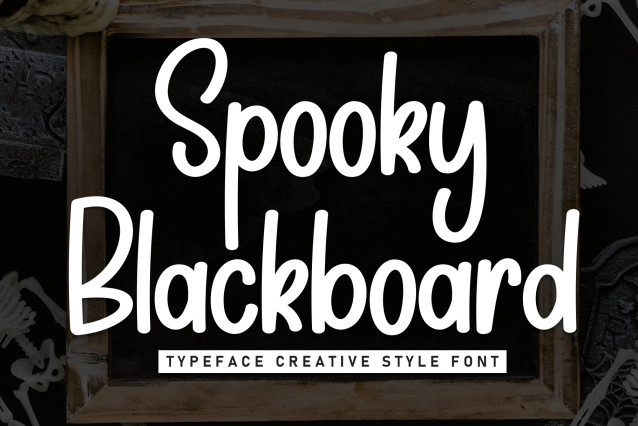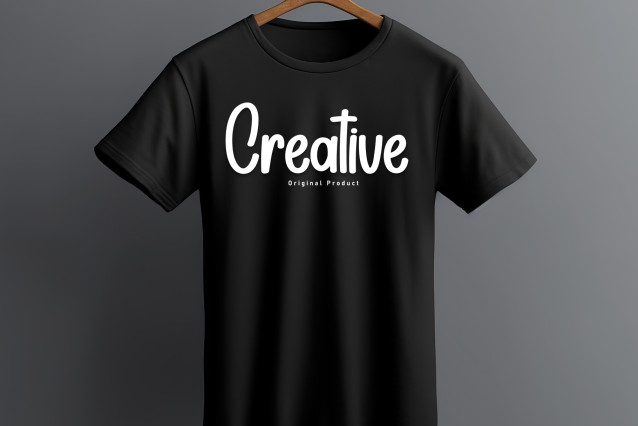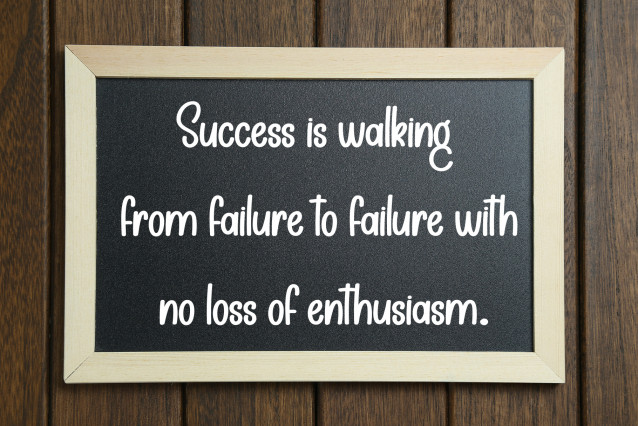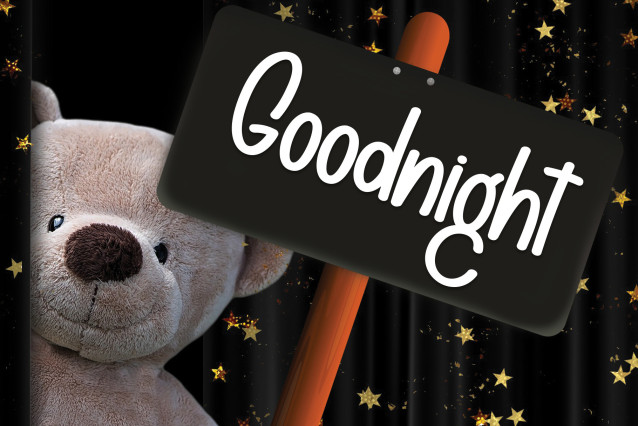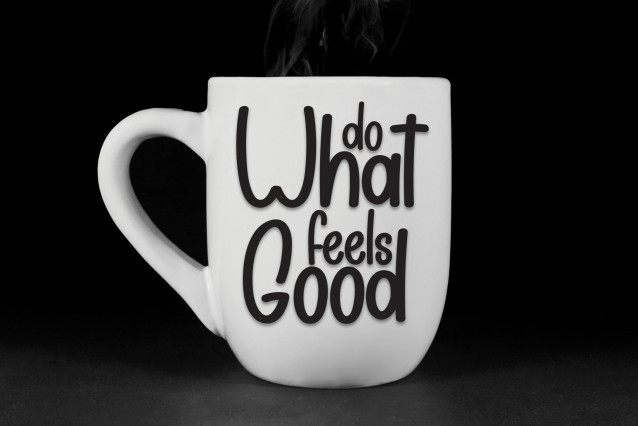
Spooky Blackboard Display Font
Spooky Blackboard Display Font is a sweet and friendly handwritten font. Its natural and unique style makes it incredibly fitting to a large pool of designs. The only limit is your imagination!